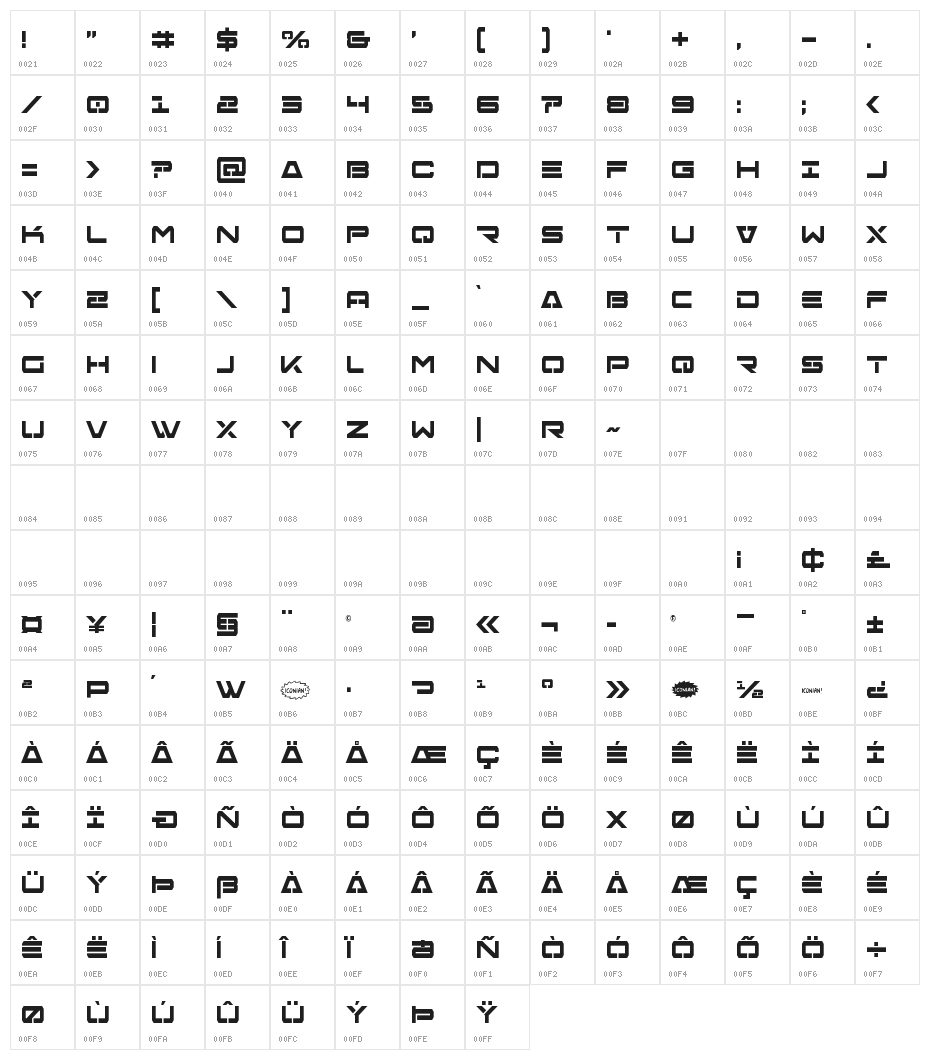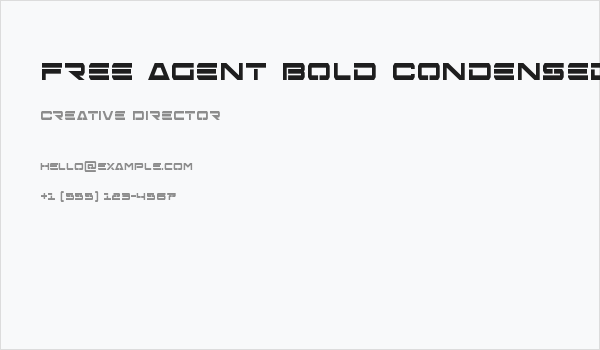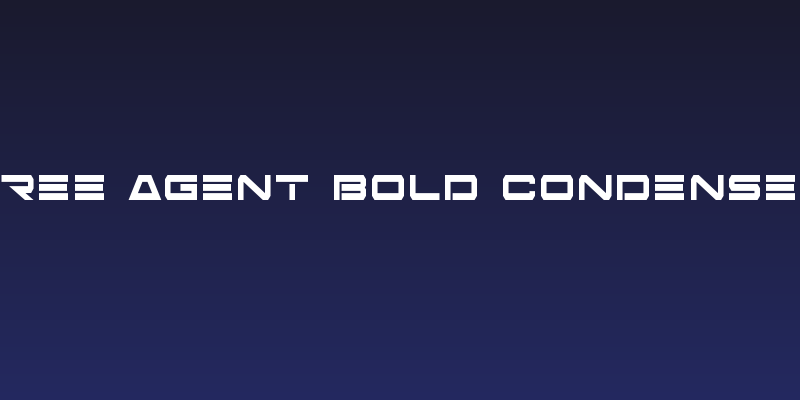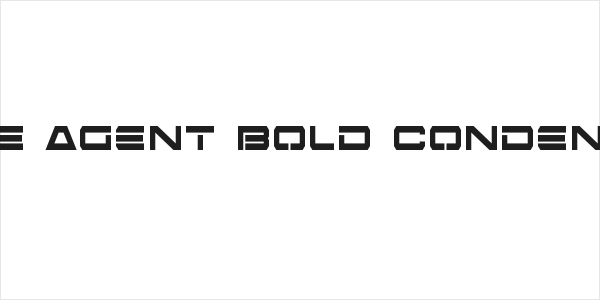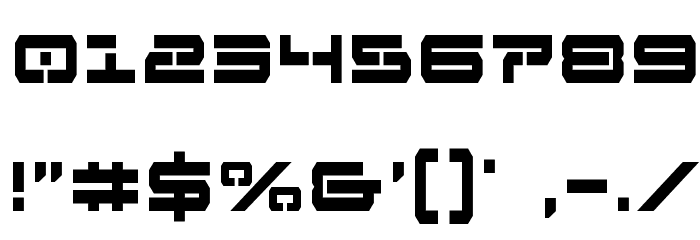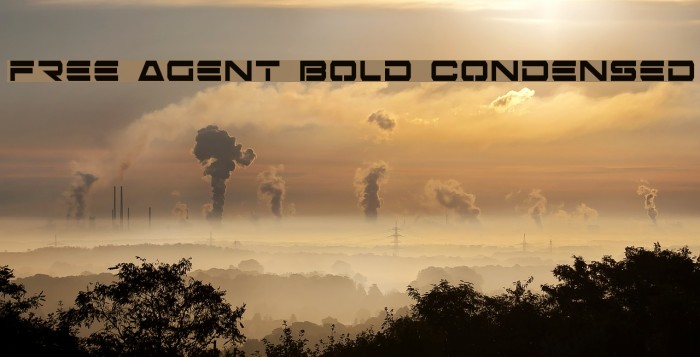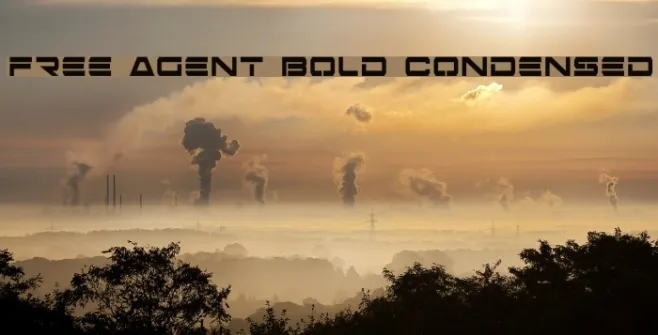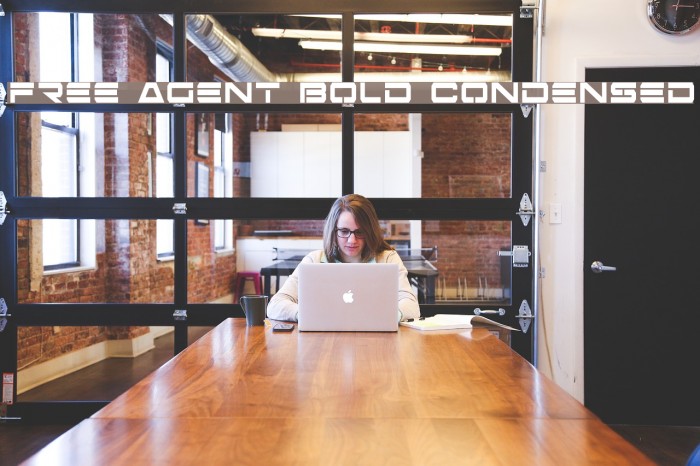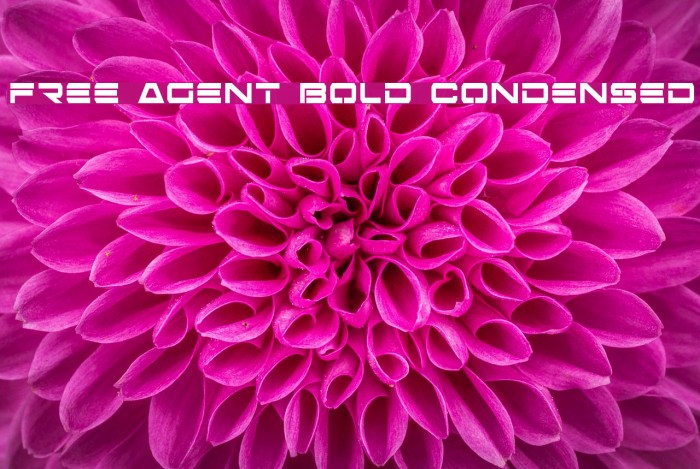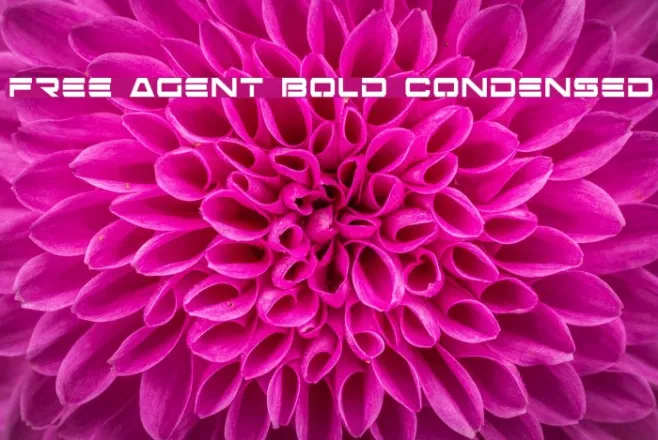
Free Agent Bold Condensed Font
Free Agent Bold Condensed Description
This font features a bold and condensed style with a futuristic and geometric design. The characters are constructed with sharp angles and straight lines, giving it a modern and edgy appearance. The uppercase letters are uniform in height, while the lowercase letters maintain a consistent style, enhancing readability. Numbers and special characters follow the same design principles, ensuring a cohesive look across all glyphs. This font's unique structure makes it stand out, ideal for projects that require a strong visual impact.
| Proposed Projects | Ideal for branding, posters, video game graphics, and sci-fi themed projects. |